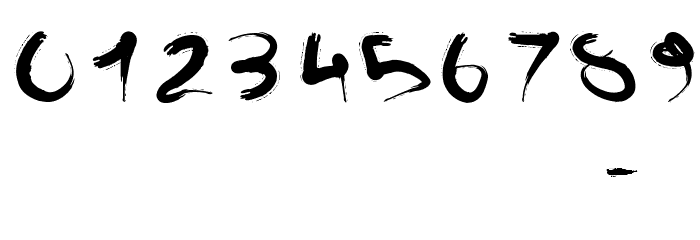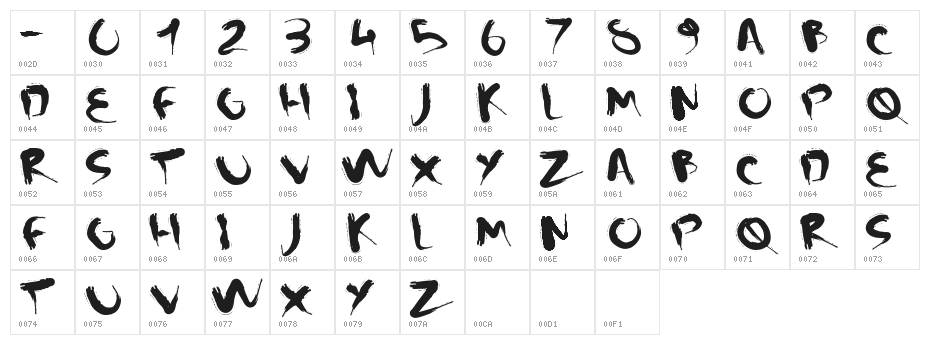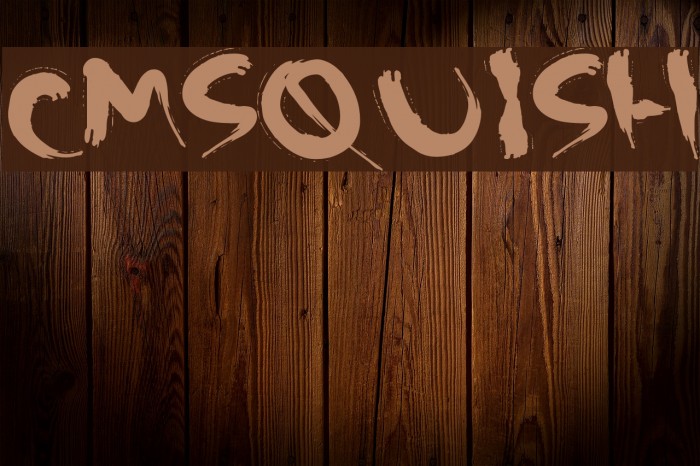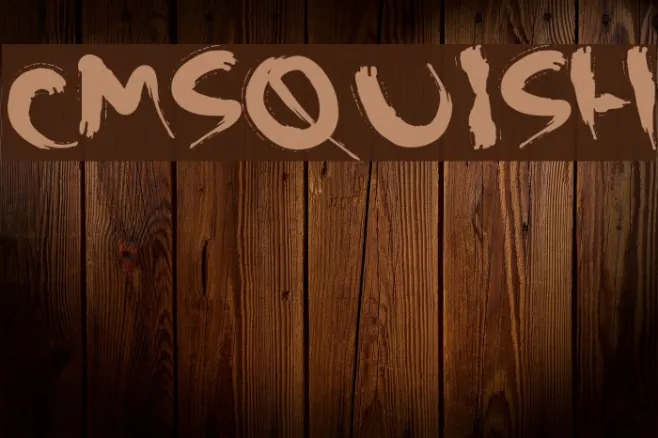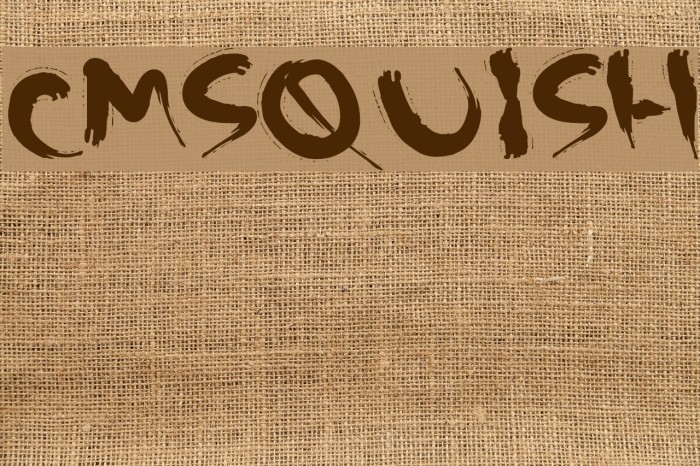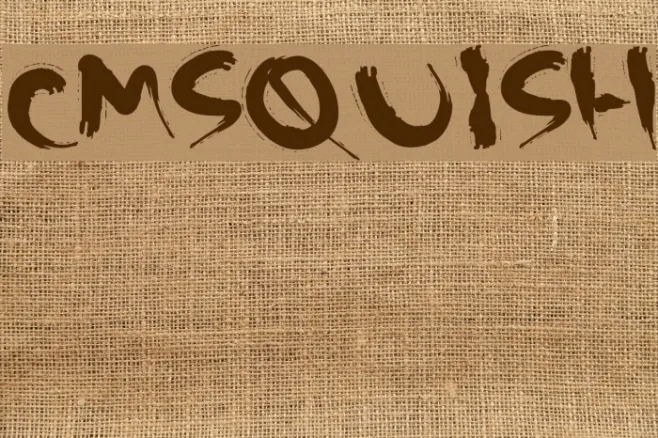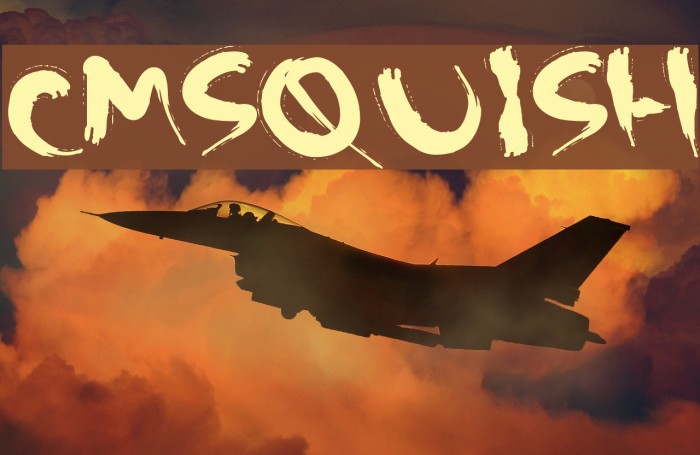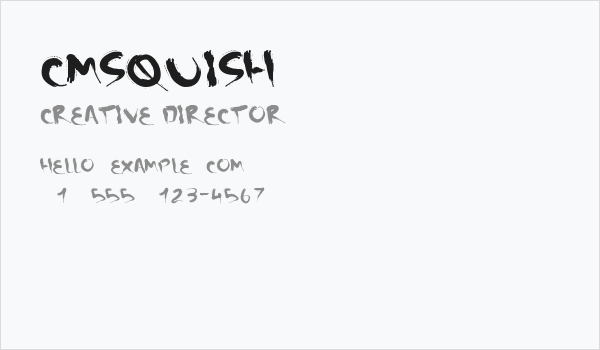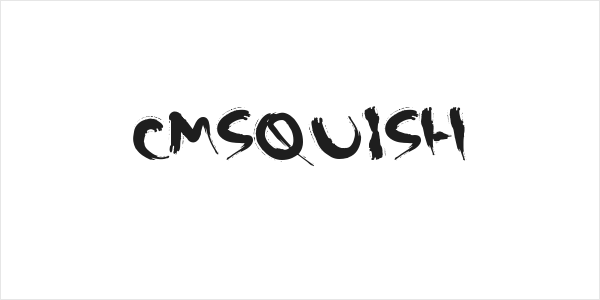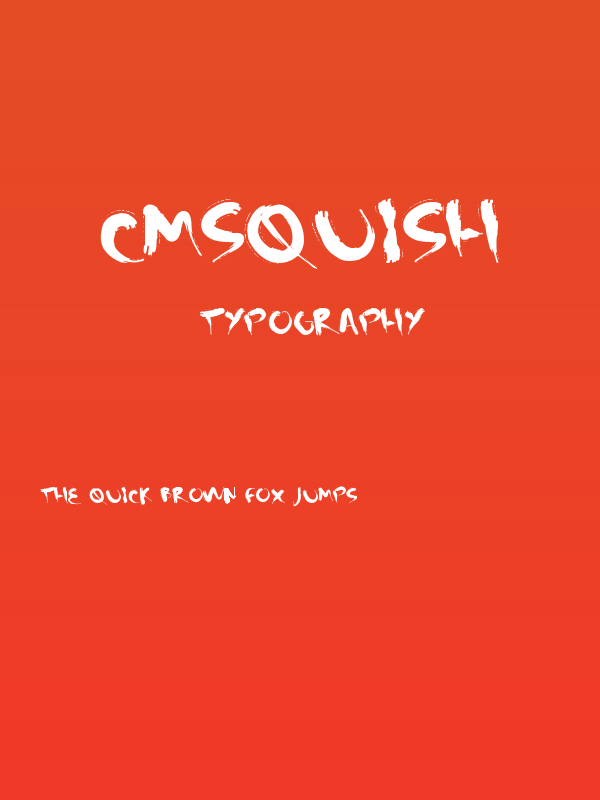
CMSquish Font
CMSquish Description
This font features a bold, expressive brush style that conveys a sense of energy and movement. The strokes are uneven and dynamic, giving it a hand-painted appearance. Each character is unique, with varying thickness and a slightly rough texture that adds to its artistic flair. The uppercase and lowercase letters maintain a consistent style, while the numerals and special characters blend seamlessly with the overall design. This font is ideal for projects that require a bold, artistic touch, such as posters, album covers, or creative branding.
| Proposed Projects | Ideal for posters, album covers, creative branding, and artistic projects. |